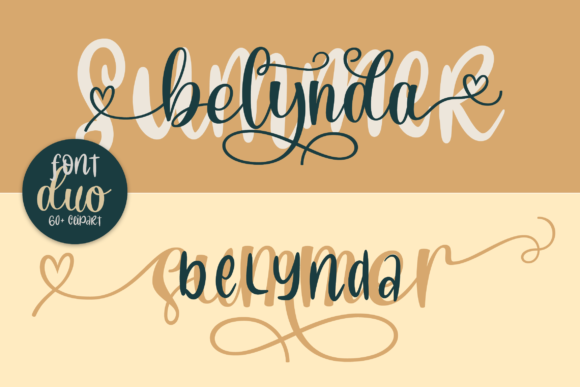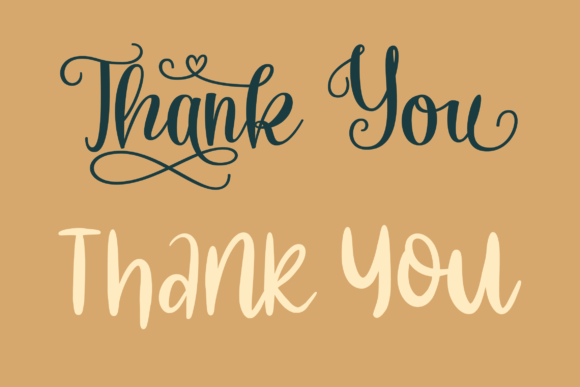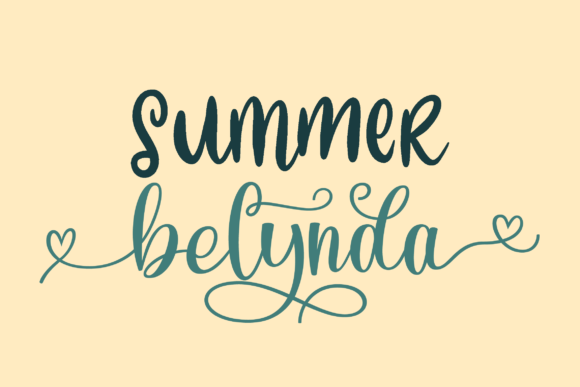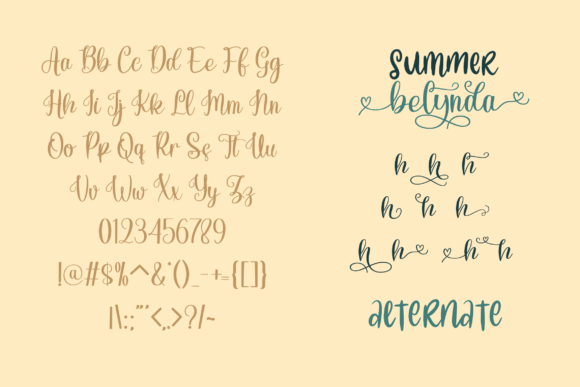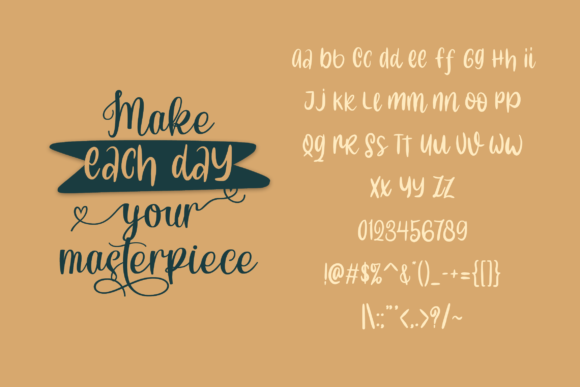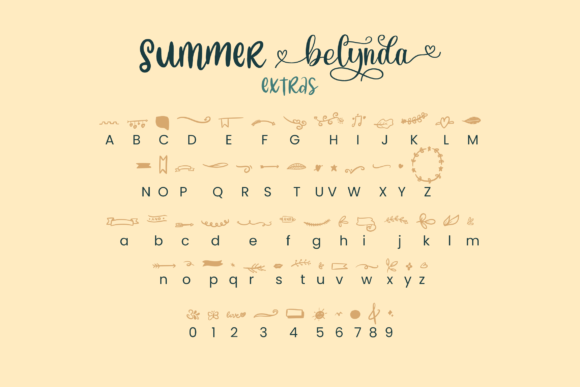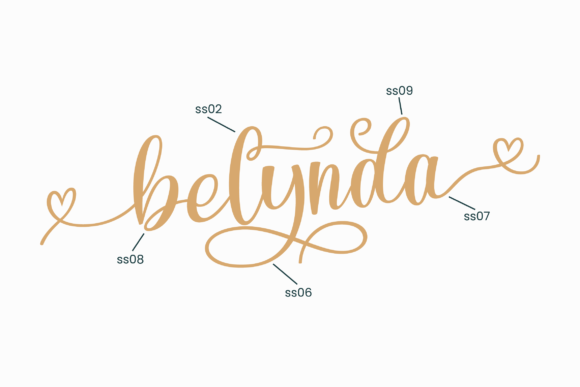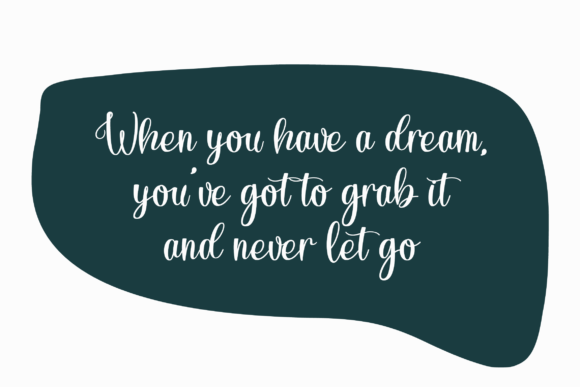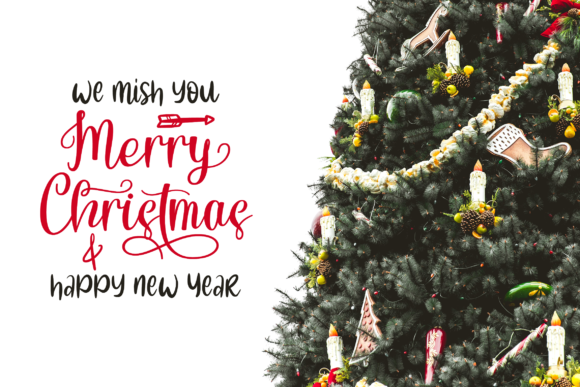
Summer Belynda Font
About Summer Belynda Font
Summer Belynda is a beautiful and romantic handwritten font that brings an elegant touch to your designs. With its stunning appearance, this font is particularly well-suited for wedding invitations, thank you cards, quotes, greeting cards, logos, business cards, and any other project that benefits from a handwritten and romantic aesthetic.
The beautiful and romantic qualities of Summer Belynda make it an ideal choice for projects that require a touch of sophistication and warmth. Whether used in wedding invitations or thank you cards, this font adds a romantic and personal feel to your text.
In quotes and greeting cards, Summer Belynda’s handwritten charm creates an inviting and heartfelt atmosphere. The font’s elegant strokes enhance the sentiment of your messages, making them stand out with grace and beauty.
For logos and business cards, Summer Belynda brings a touch of uniqueness and personality. The romantic and handwritten style adds a human touch to your brand identity, making it memorable and appealing to your audience.
One notable feature of Summer Belynda is its PUA encoding, providing easy access to all glyphs and swashes. This feature allows you to enhance the uniqueness of your designs by incorporating special characters and flourishes seamlessly.
Whether applied to digital or print materials, Summer Belynda stands out with its beautiful and romantic design. The font’s ability to convey a handwritten touch adds a level of authenticity and charm to your projects, making them more engaging and memorable.
In summary, Summer Belynda is more than just a font; it’s a beautiful and romantic handwritten design tool that elevates the beauty of your projects. Whether used in wedding invitations, quotes, logos, or other creative endeavors, Summer Belynda brings a touch of elegance and romance that enhances your designs with grace and warmth.